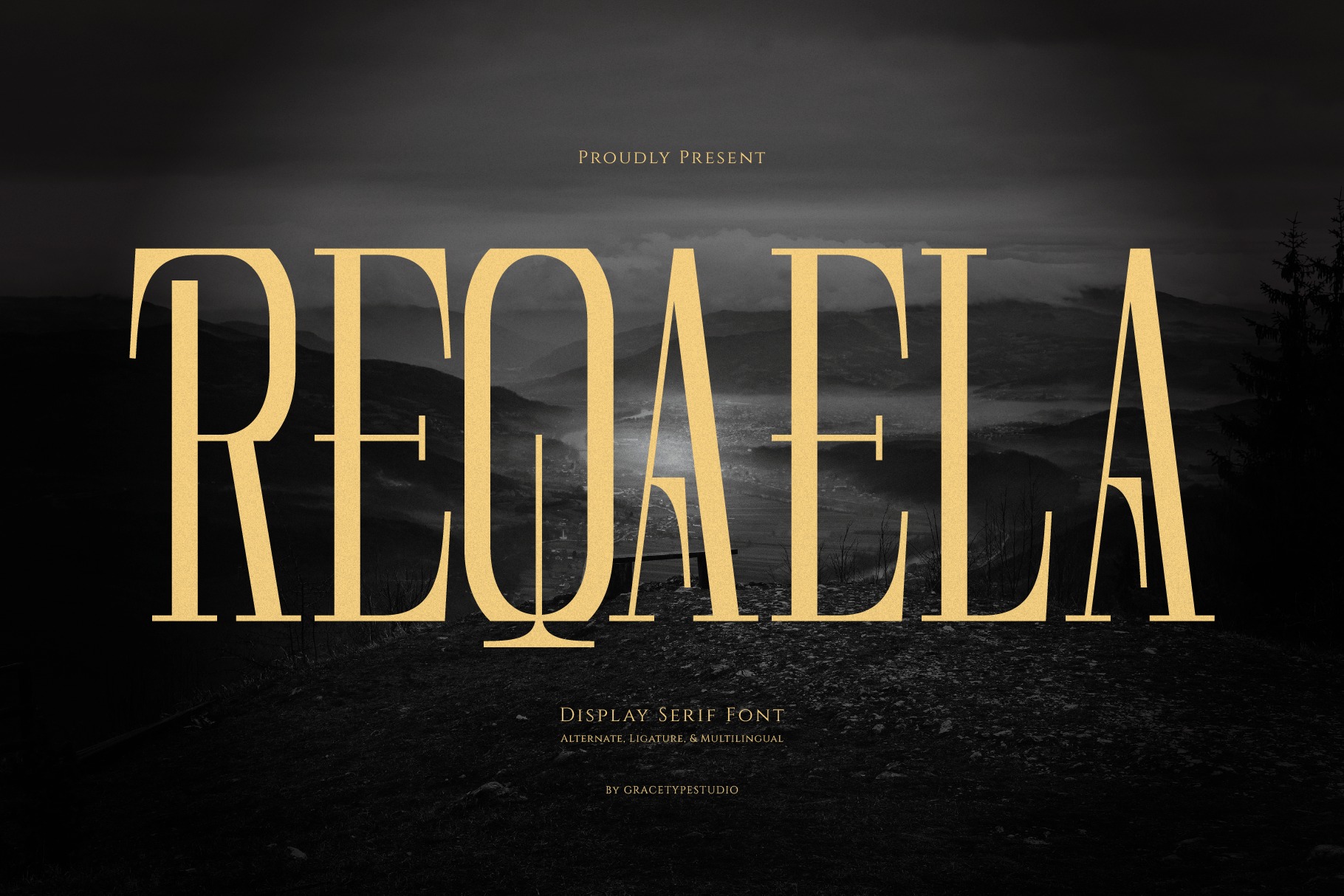
Reqaela Font
Reqaela Font brings a balanced structure and contemporary look, making it suitable for both digital and print design. Reqaela | Display Serif Font, from Gracetypestudio, suitable for any projects such as: logos, branding projects, homeware designs, product packaging, mugs, quotes, posters, shopping bags, t-shirts, book covers, name card, invitation cards, greeting cards, label, photography, watermark, special events, and all your other lovely projects that need a Serif taste.